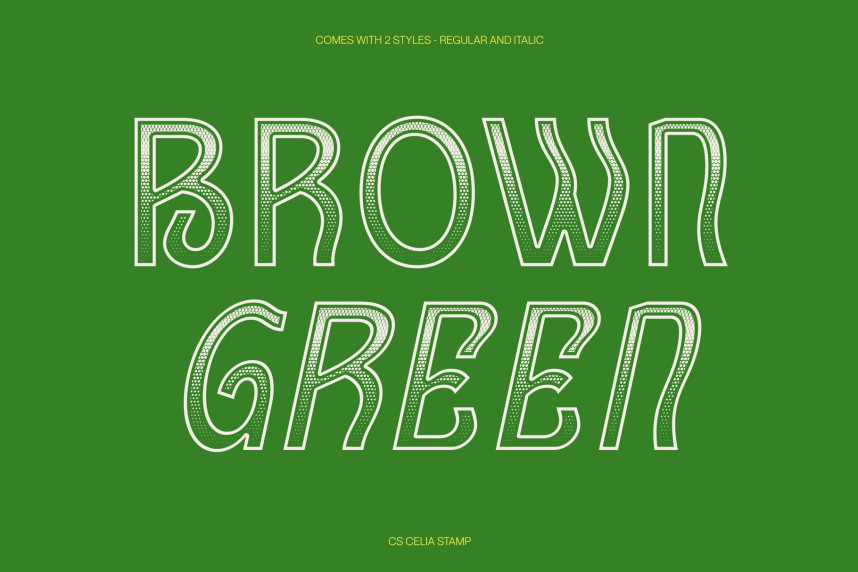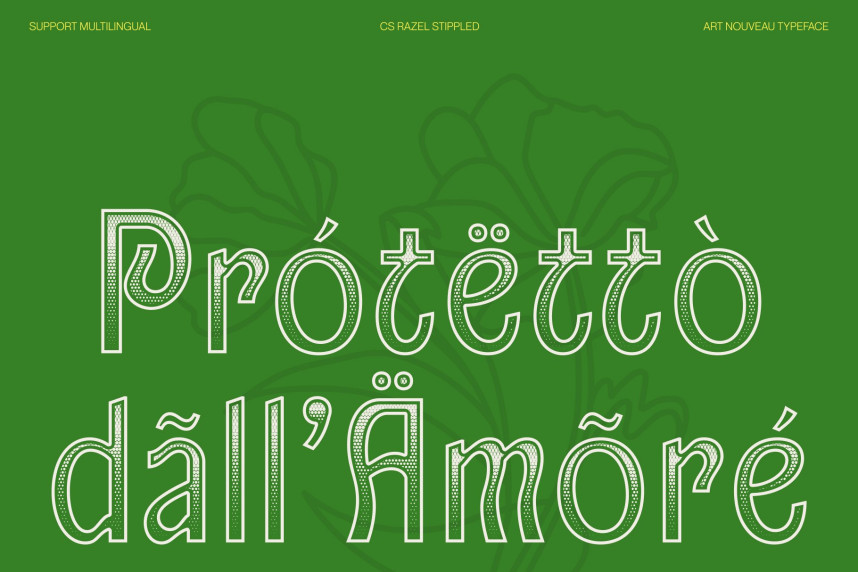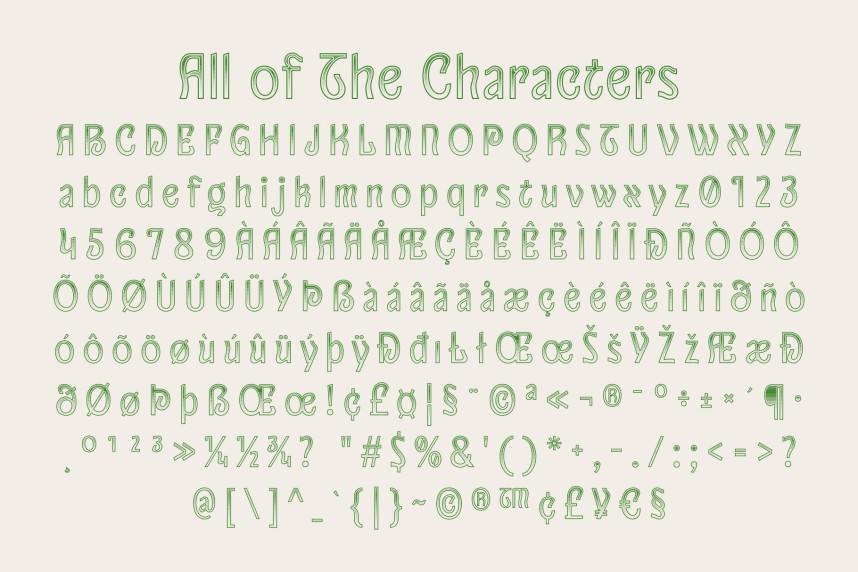
CS Razel Stippled Font
CS Razel Stippled Font – Art Nouveau Font
Flowing Elegance with a Refined Artistic Touch
This is a display sans-serif font that merges the graceful curves of Art Nouveau with the clarity of modern typography. Its flowing shapes and delicate stippled texture create a refined and expressive personality, making it perfect for designs that value beauty, sophistication, and artistic storytelling.